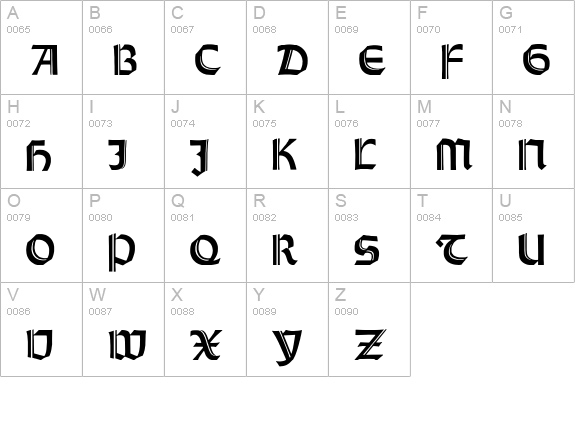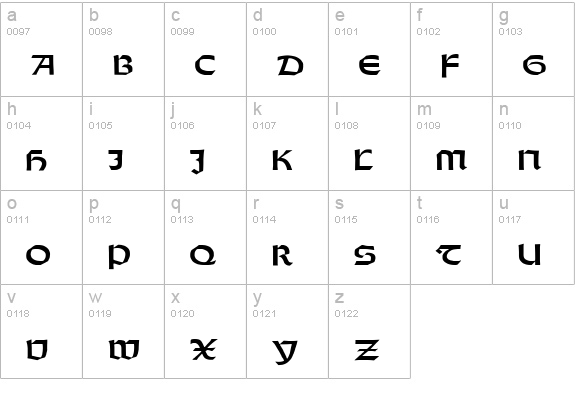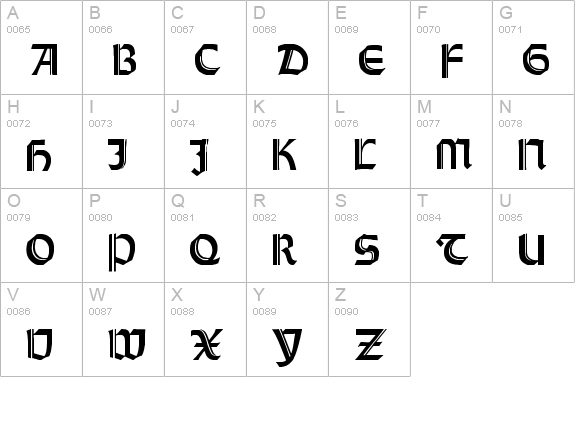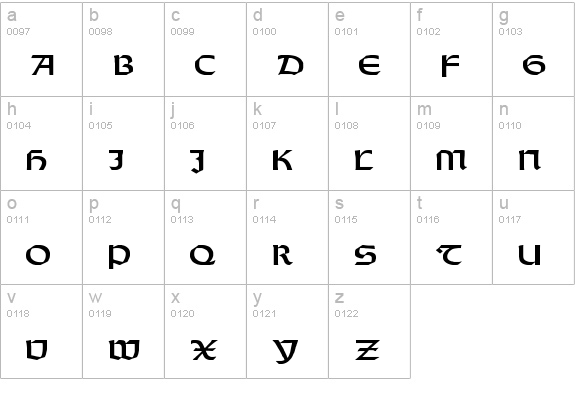
Orotund Capitals Heavy is a heavy, high-impact variant in the Orotund typeface family \xE2\x80\x94 well suited to high-impact headlines, posters, and display advertising.
Orotund Capitals Heavy font is a striking and bold typeface that commands attention with its strong presence and exquisite design. The thick, weighty strokes of the letters exude confidence and power, making it a perfect choice for headlines, titles, and other display purposes. The Orotund Capitals Heavy font features a classic yet modern aesthetic that adds a touch of sophistication to any design project. What makes this font even more appealing is that it is available for free download at FontsMarket.com. This means you can easily access and use this premium-quality typeface without any cost, making it a valuable resource for designers, creatives, and anyone looking to elevate their projects with a touch of elegance and style. Don't miss out on the opportunity to enhance your designs with the Orotund Capitals Heavy font - download it for free today at FontsMarket.com.